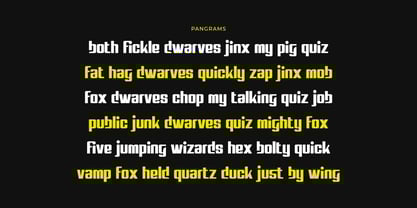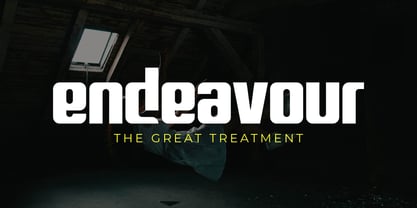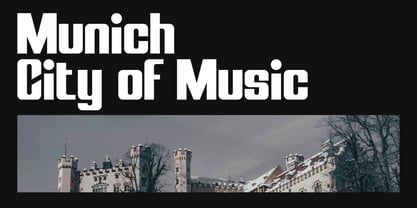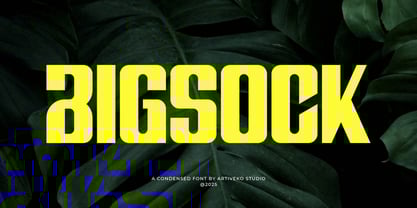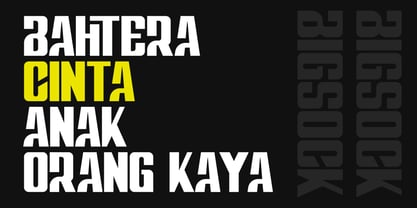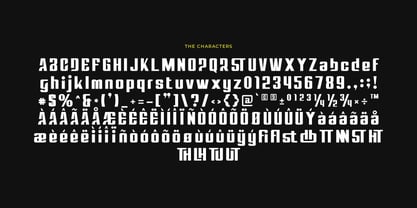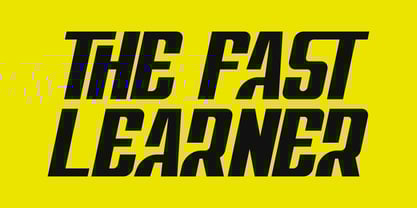
Bigsock
by Artiveko
The Bigsock Font Family was designed by Iwan Alwan and published by Artiveko. Bigsock contains 2 styles and family package options.
Bigsock is a bold condensed display font designed to make a strong visual impact with its tall, striking letterforms. Perfect for posters, headlines, branding, and editorial designs, Bigsock delivers a modern and authoritative presence. With multilingual support, ligatures, and alternates, this versatile typeface ensures high readability and a dynamic look, making it ideal for projects that require boldness and style.
Designers: Iwan Alwan
Publisher: Artiveko
Foundry: Artiveko